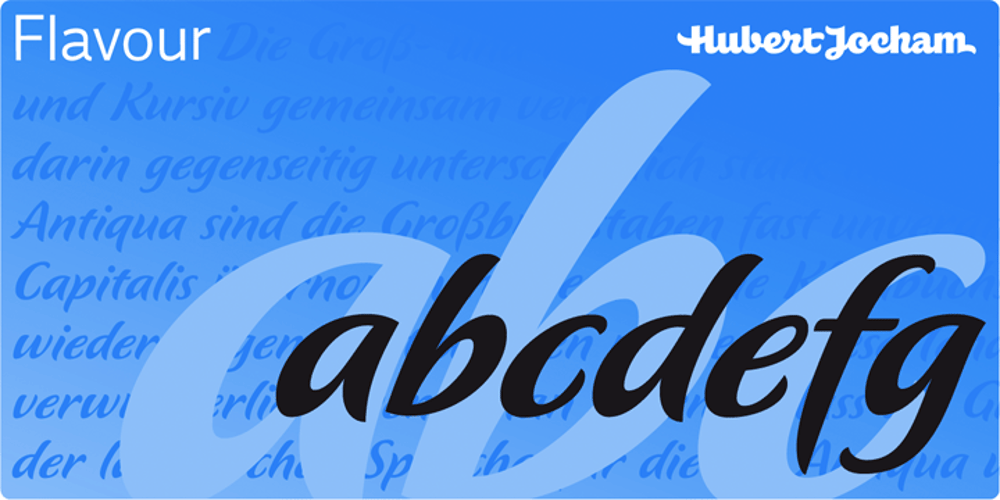
Flavour
Flavour font
Flavour Font Family was designed by Hubert Jocham and published by Hubert Jocham Type. Flavour contains 5 styles and family package options. Flavour is an elegant brush script headline typeface. It is ideal for food packaging and product branding.